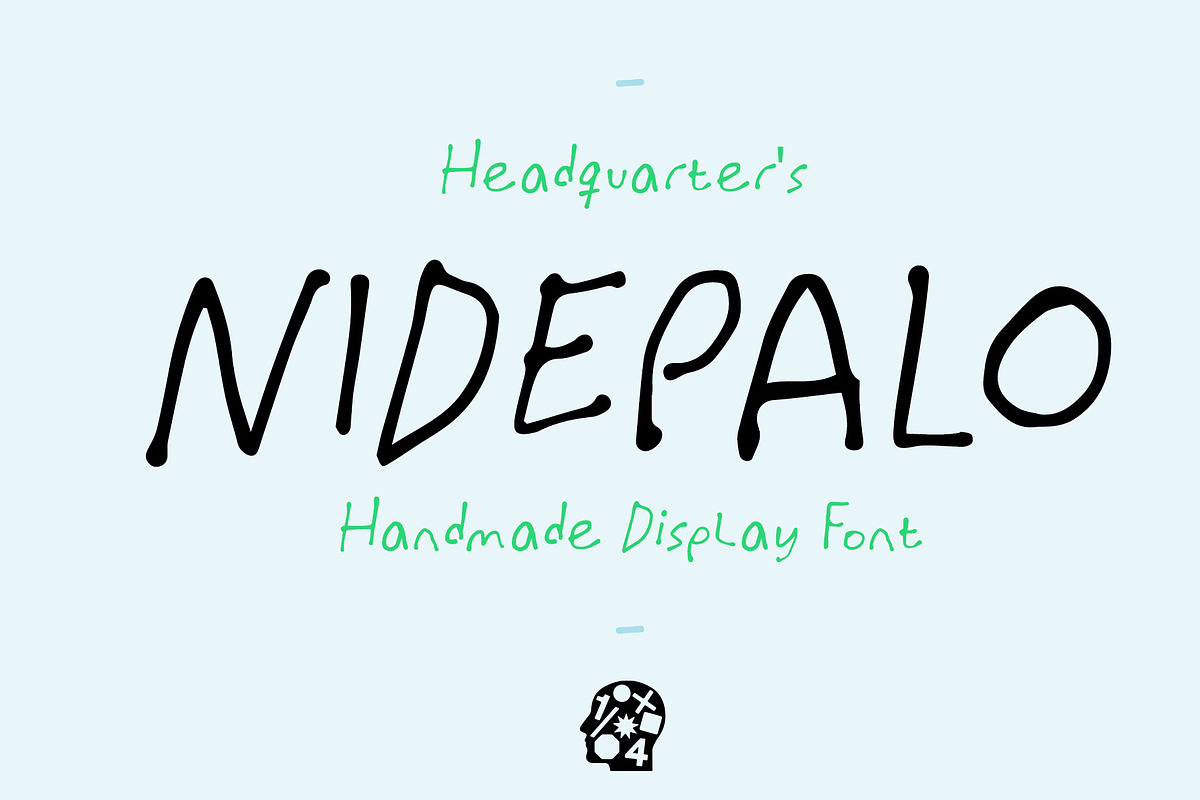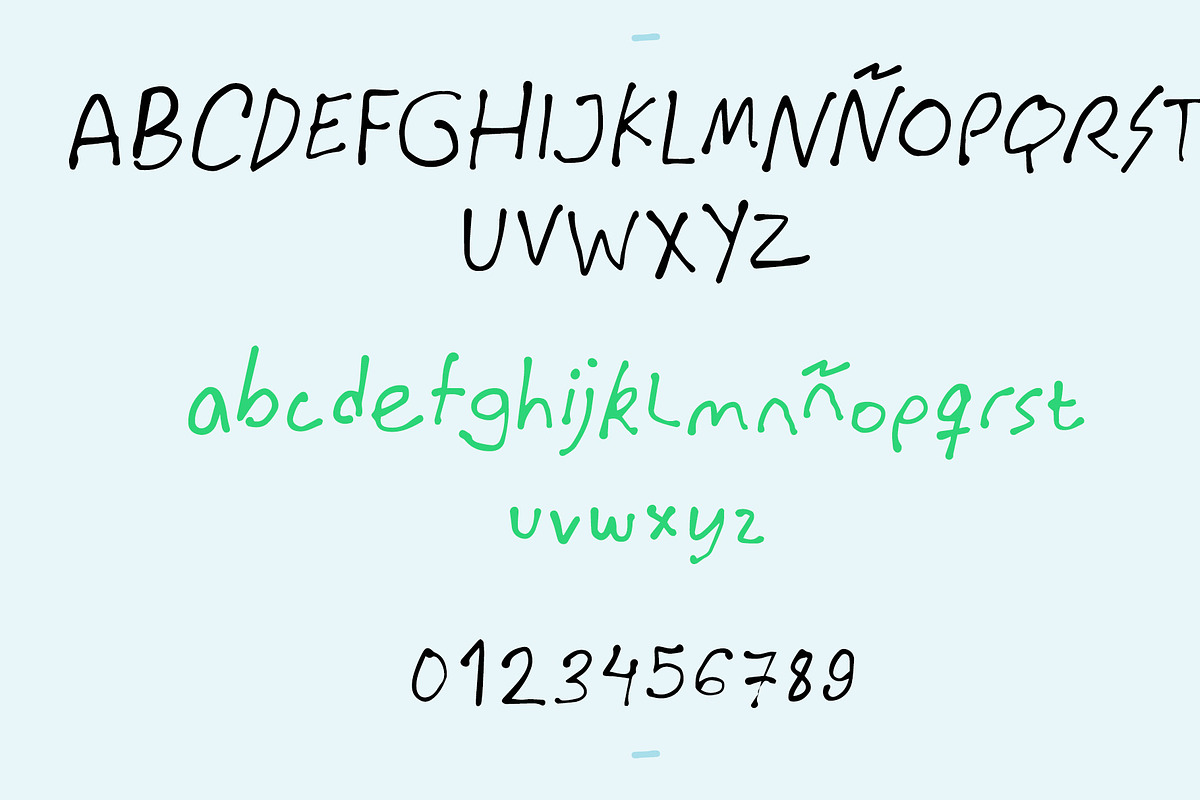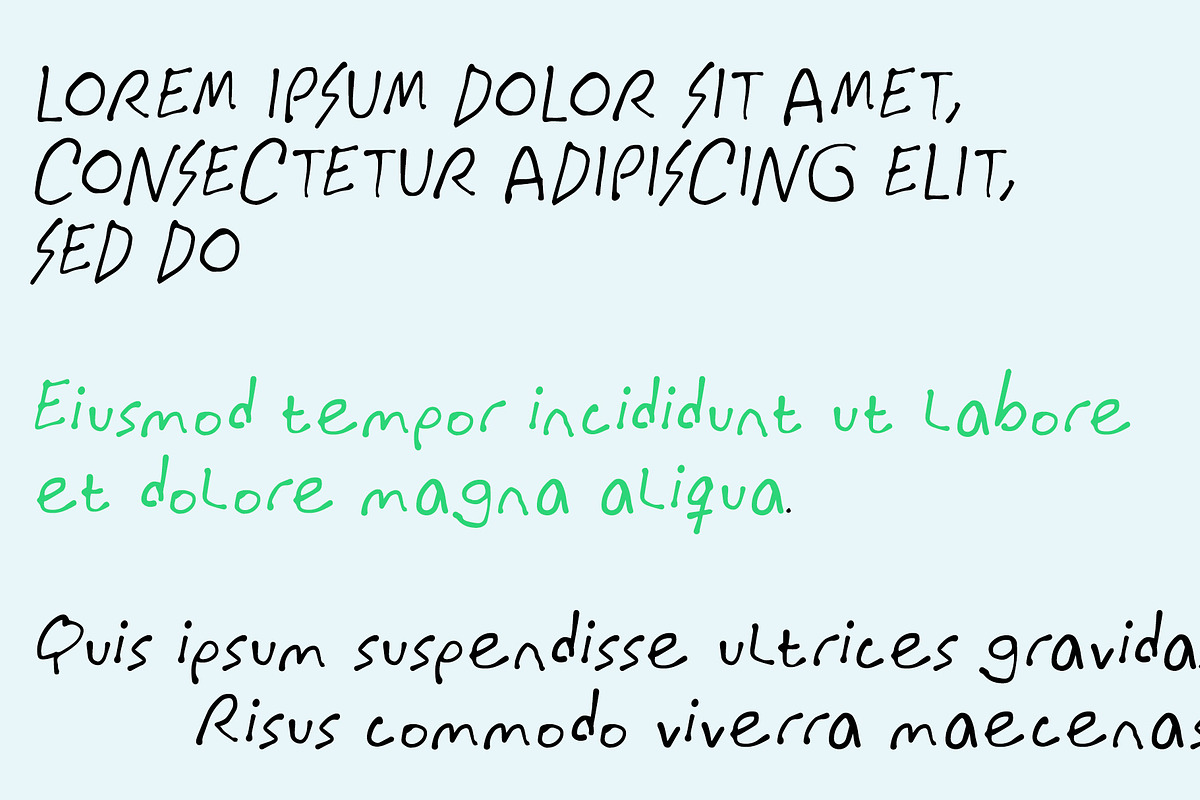
Nidepalo
Nidepalo is an exquisitely handcrafted display vector font that seamlessly merges artistic flair with digital precision. Its unique character shapes and playful geometry offer a fresh, contemporary twist to traditional typography.
Each letter in Nidepalo is carefully designed to stand out, making it perfect for eye-catching headlines, bold branding, and innovative graphic designs. Its vector-based nature ensures that it scales impeccably, retaining its clarity and impact across various applications.
Whether it's for stylish logos, dynamic web design, or trendy apparel graphics, Nidepalo adds a touch of bespoke creativity to every project it graces.